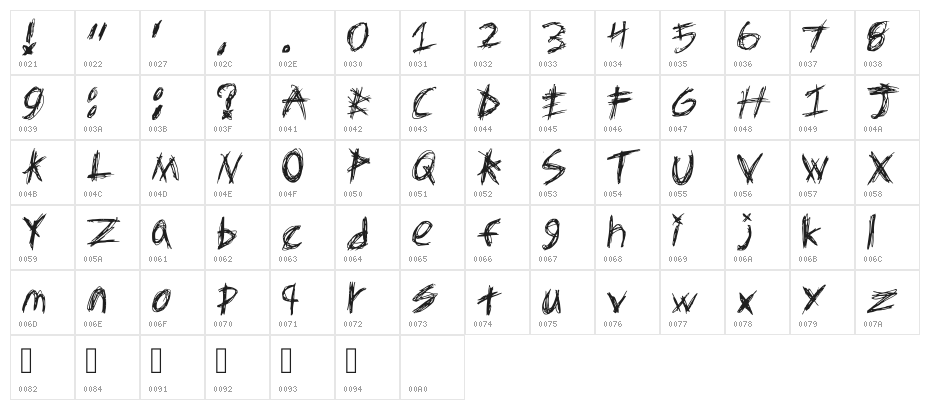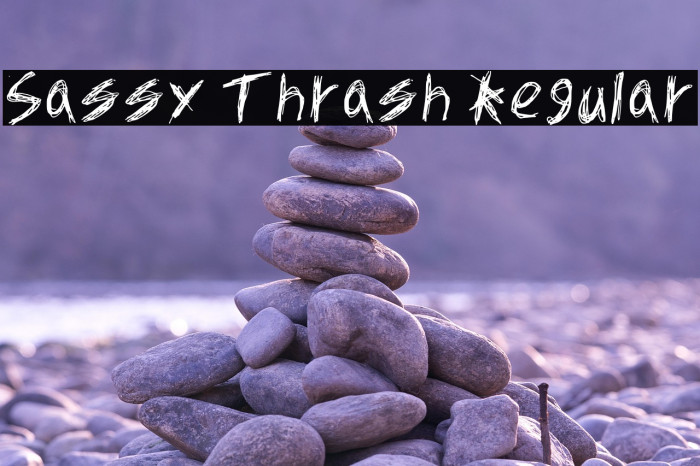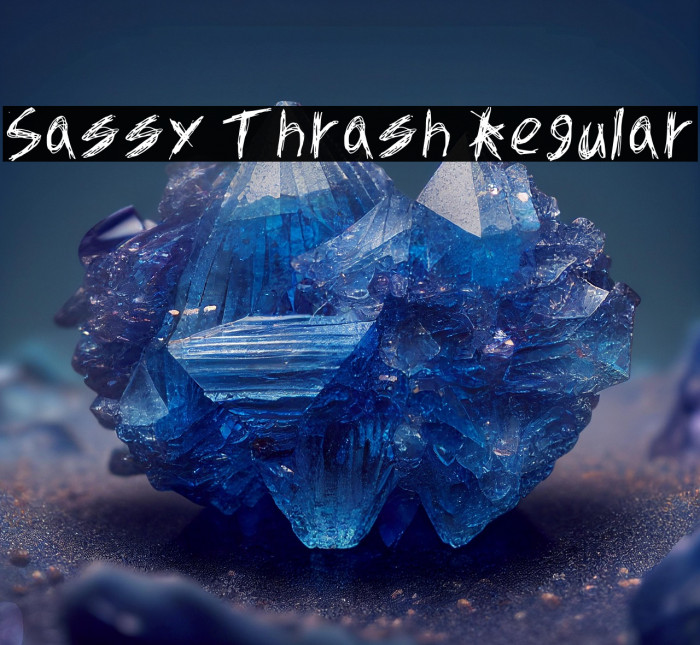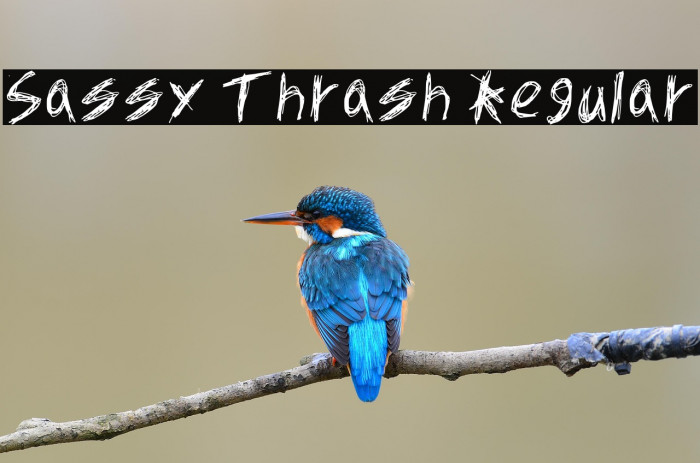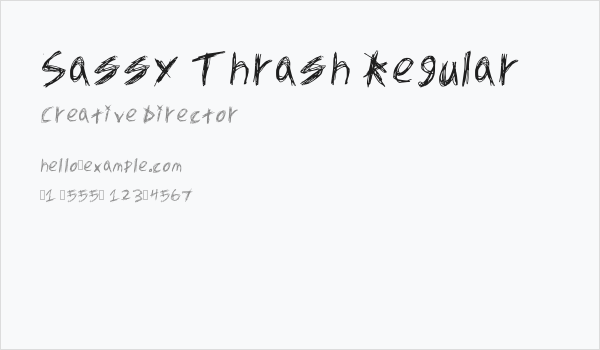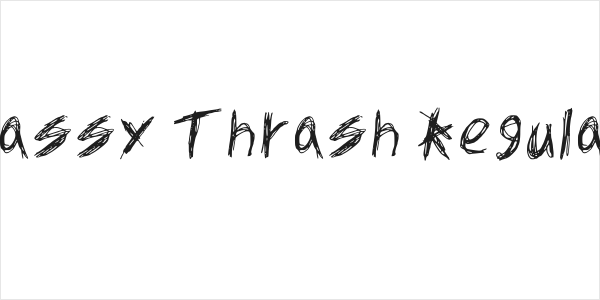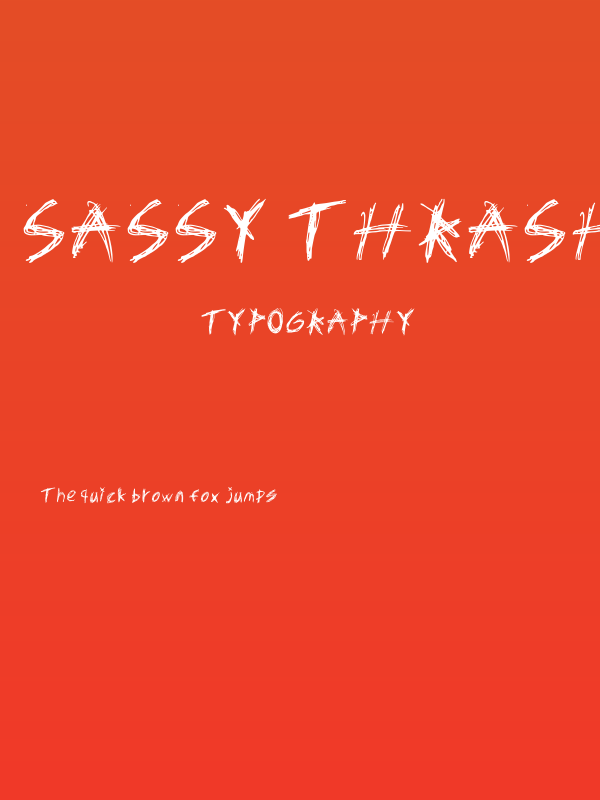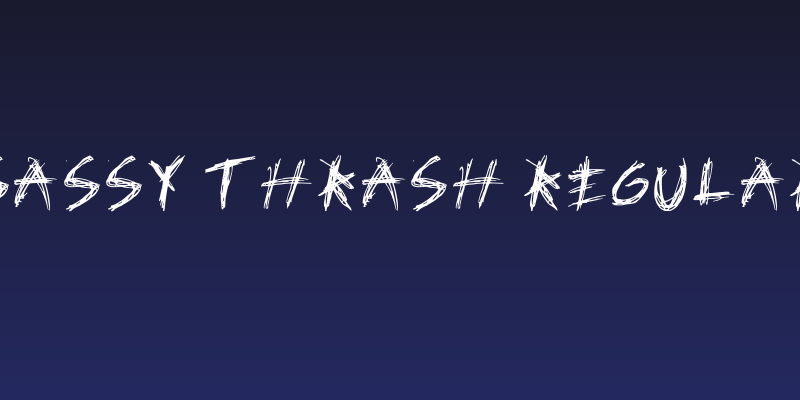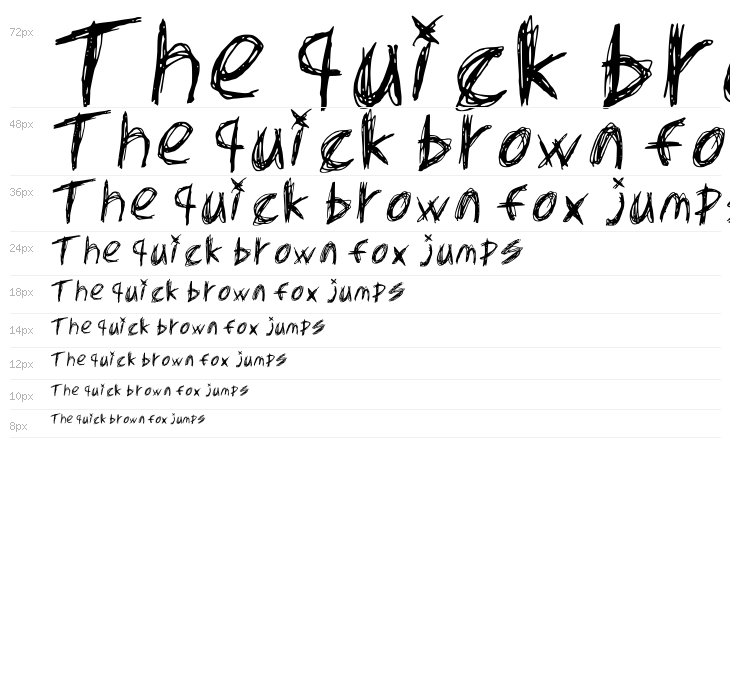
Sassy Thrash Regular Font
Sassy Thrash Regular Description
This font exudes a raw, energetic vibe with its chaotic, hand-drawn appearance. Each character is crafted with a series of jagged, overlapping strokes that create a sense of movement and intensity. The uppercase and lowercase letters maintain a consistent style, with irregular lines that give the impression of being hastily sketched. Numbers and special characters follow the same aesthetic, adding to the font's cohesive look. The overall design is bold and expressive, making it ideal for projects that require a touch of rebelliousness or a grunge-inspired theme.
Overall StyleGrunge, Edgy, Rebellious
Proposed ProjectsIdeal for album covers, posters, streetwear branding, or any project needing a rebellious, edgy aesthetic.